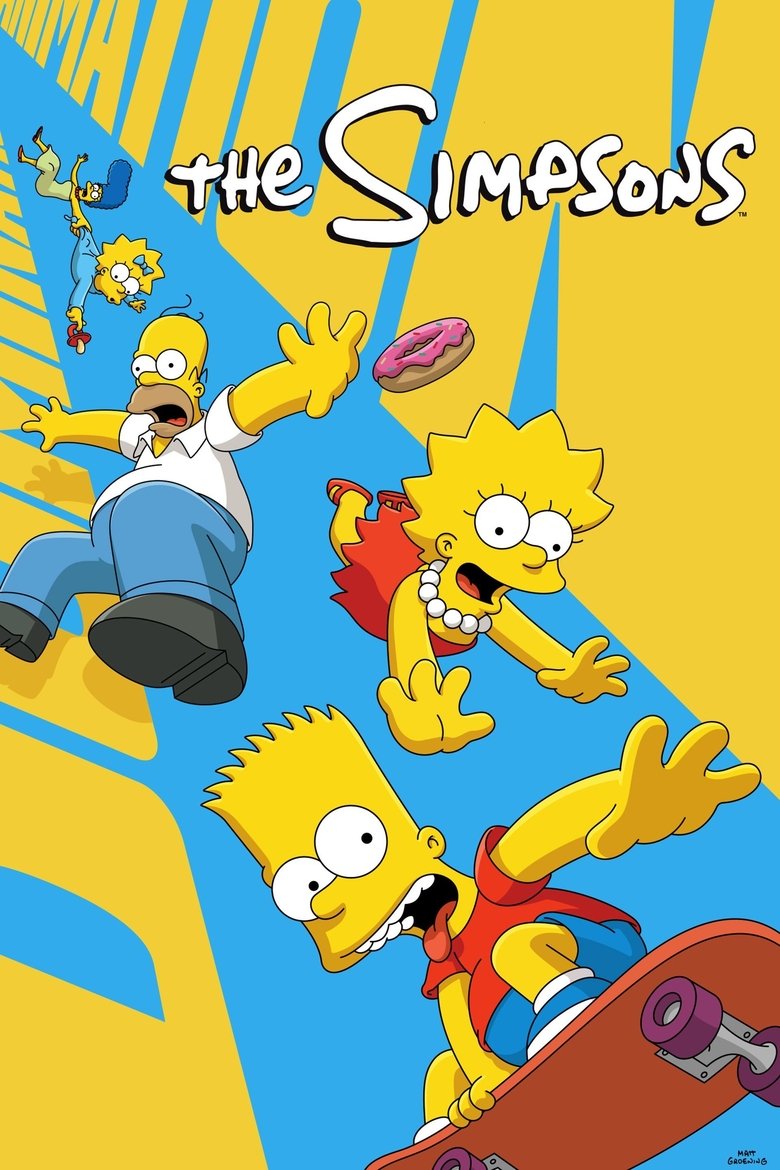
THE SIMPSONS
About the The Simpsons font
The Simpsons logo is fat, rounded and unmistakably cartoon. Titan One recreates that bouncy, yellow-hued Springfield vibe for free.
What font is used in the The Simpsons logo?+
The original The Simpsons logo uses custom lettering. This generator recreates the look with Titan One — a free, open-license font you can style and download.